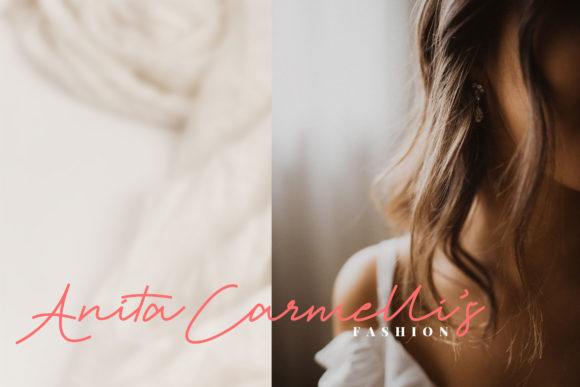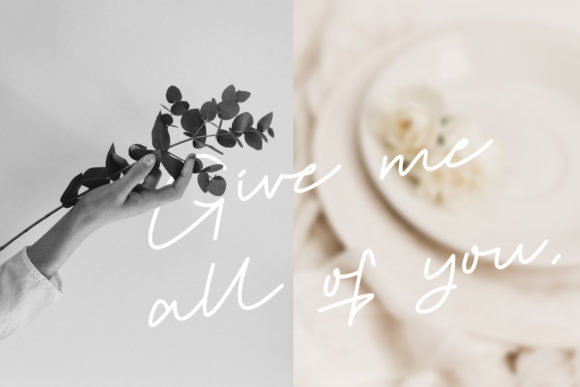
Brumptof Font
db-ku.com - Script & Handwritten -- Brumptof is a monoline font with smooth lines. Suitable as a font for your designs, products, crafts, events, weddings, and others.